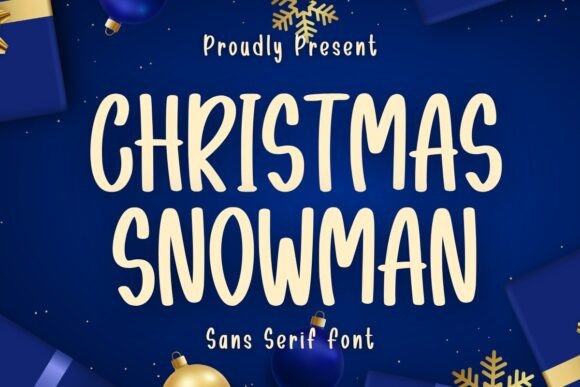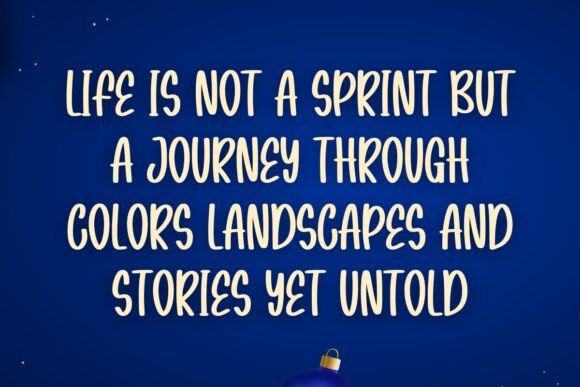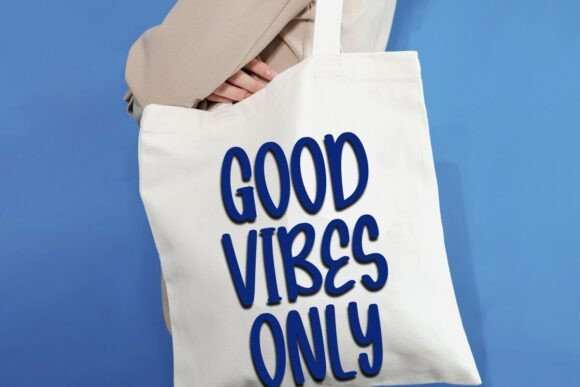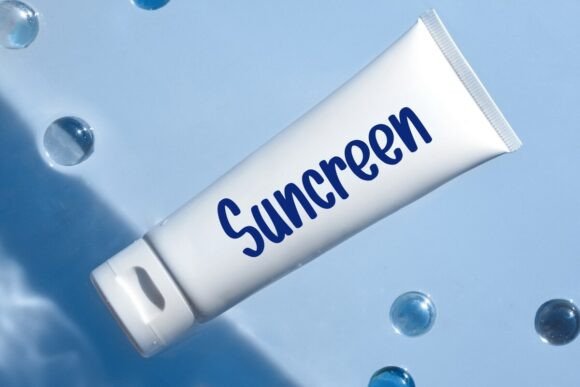
Christmas Snowman Font
About the Christmas Snowman Font
Presenting Christmas Snowman Font, a unique and stylish typeface that will make your work stand out. Christmas Snowman a modern and friendly sans-serif font, is a delightful blend of whimsy and clarity. Its playful curves and rounded edges bring a sense of warmth to any design. Perfect for children’s books, invitations, and branding, Christmas Snowman radiates a sweet charm that captures attention with its inviting personality.
Christmas Snowman Font Usage Examples
Christmas Snowman Font Example